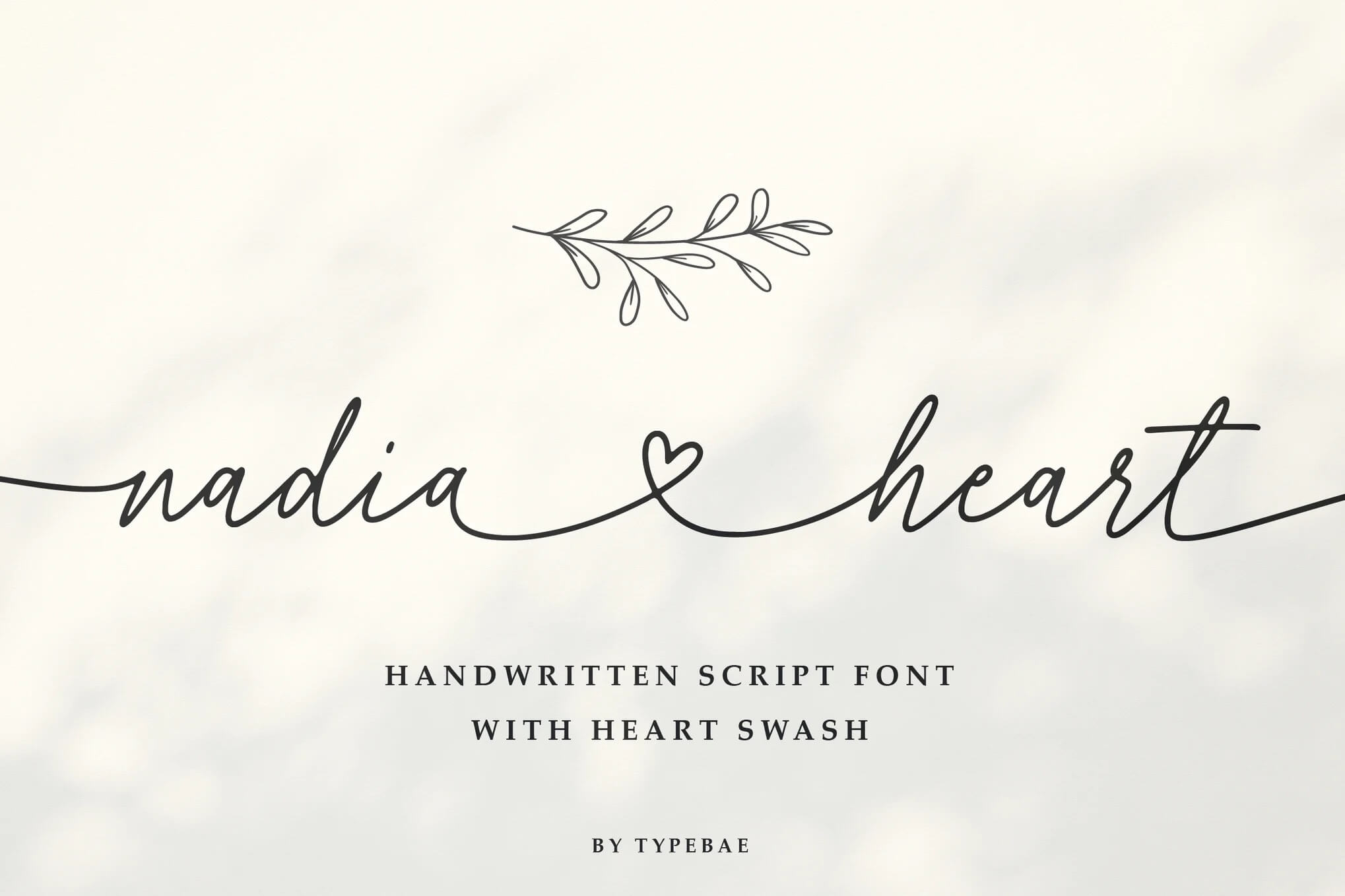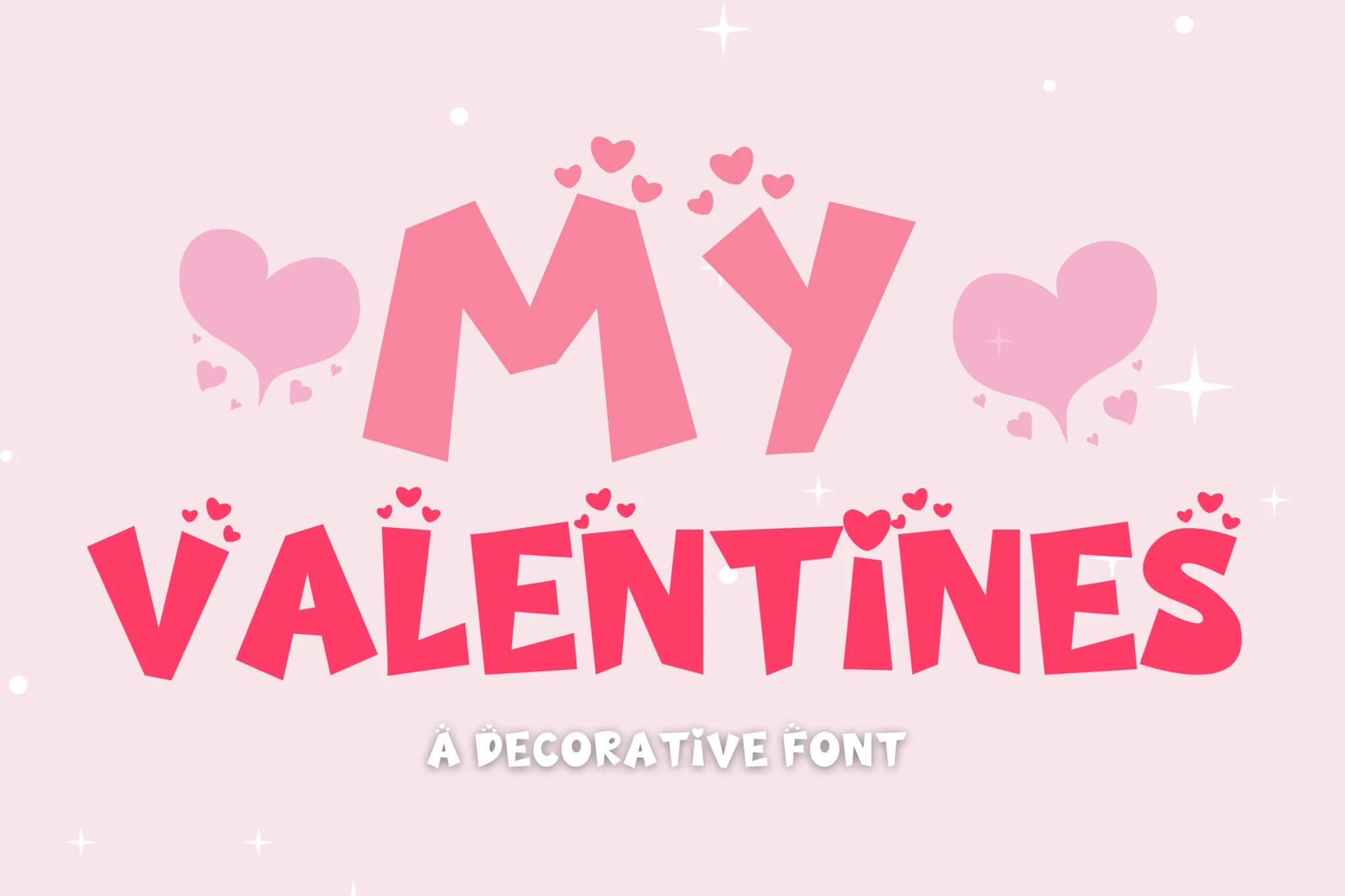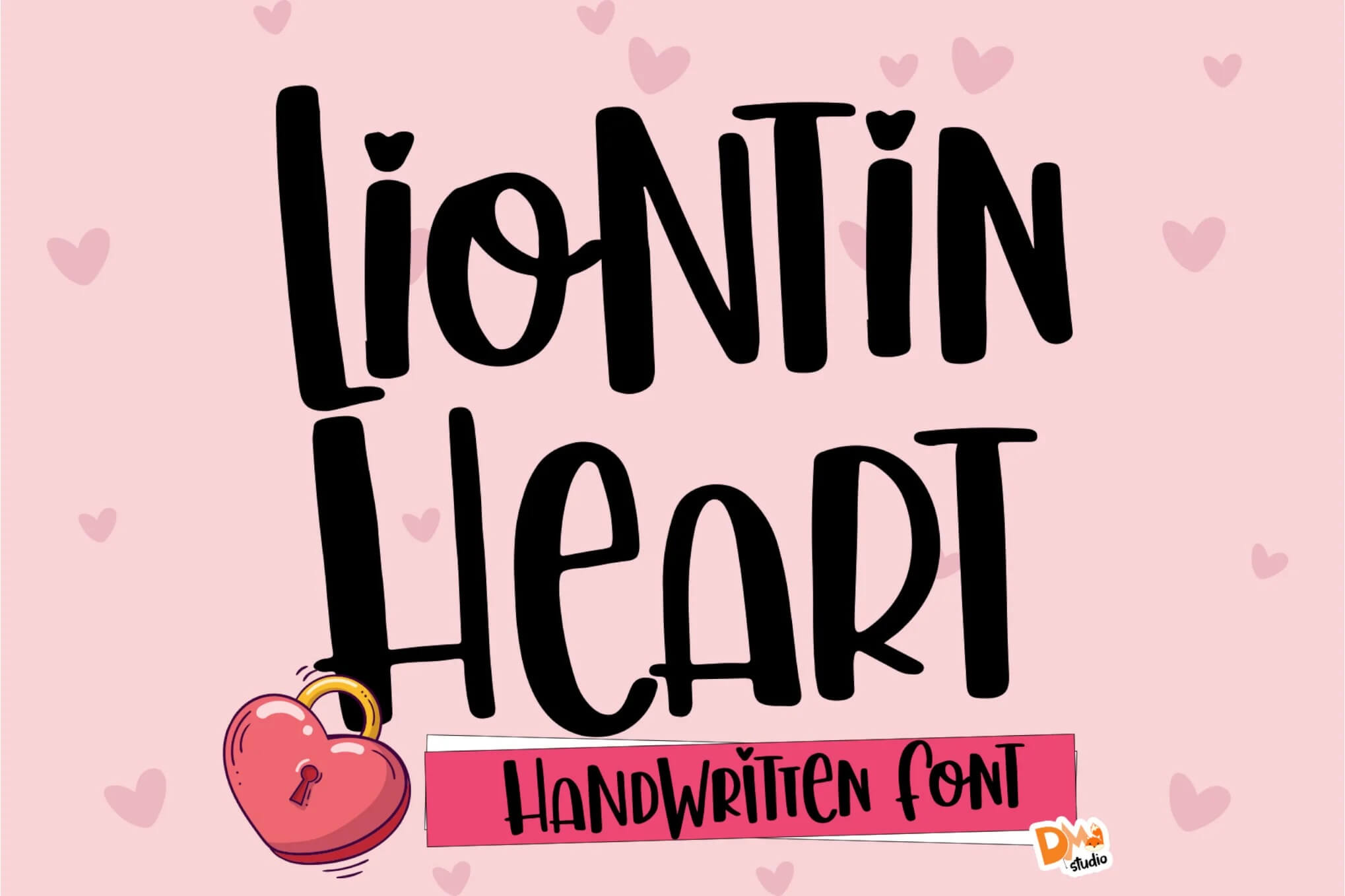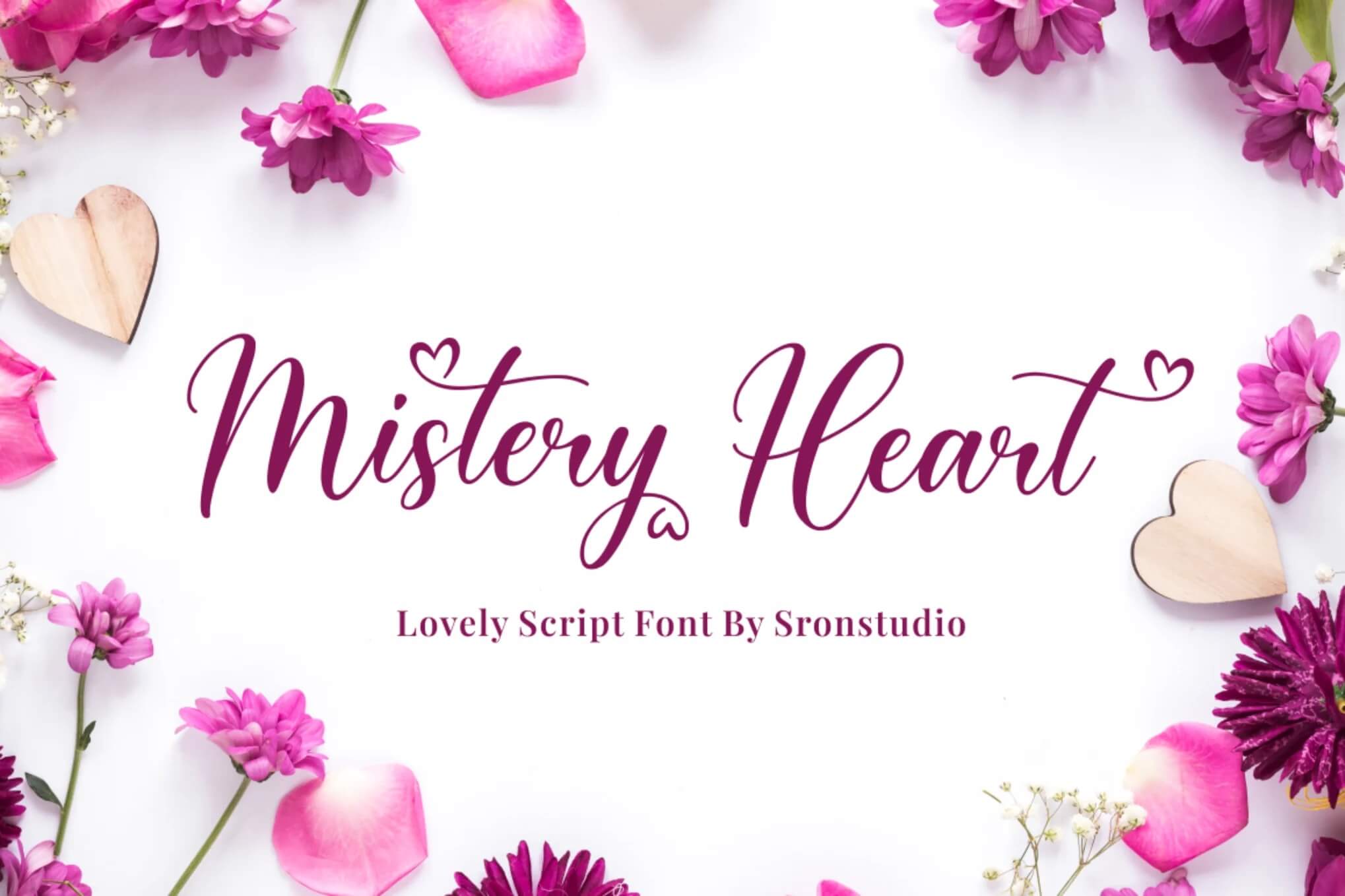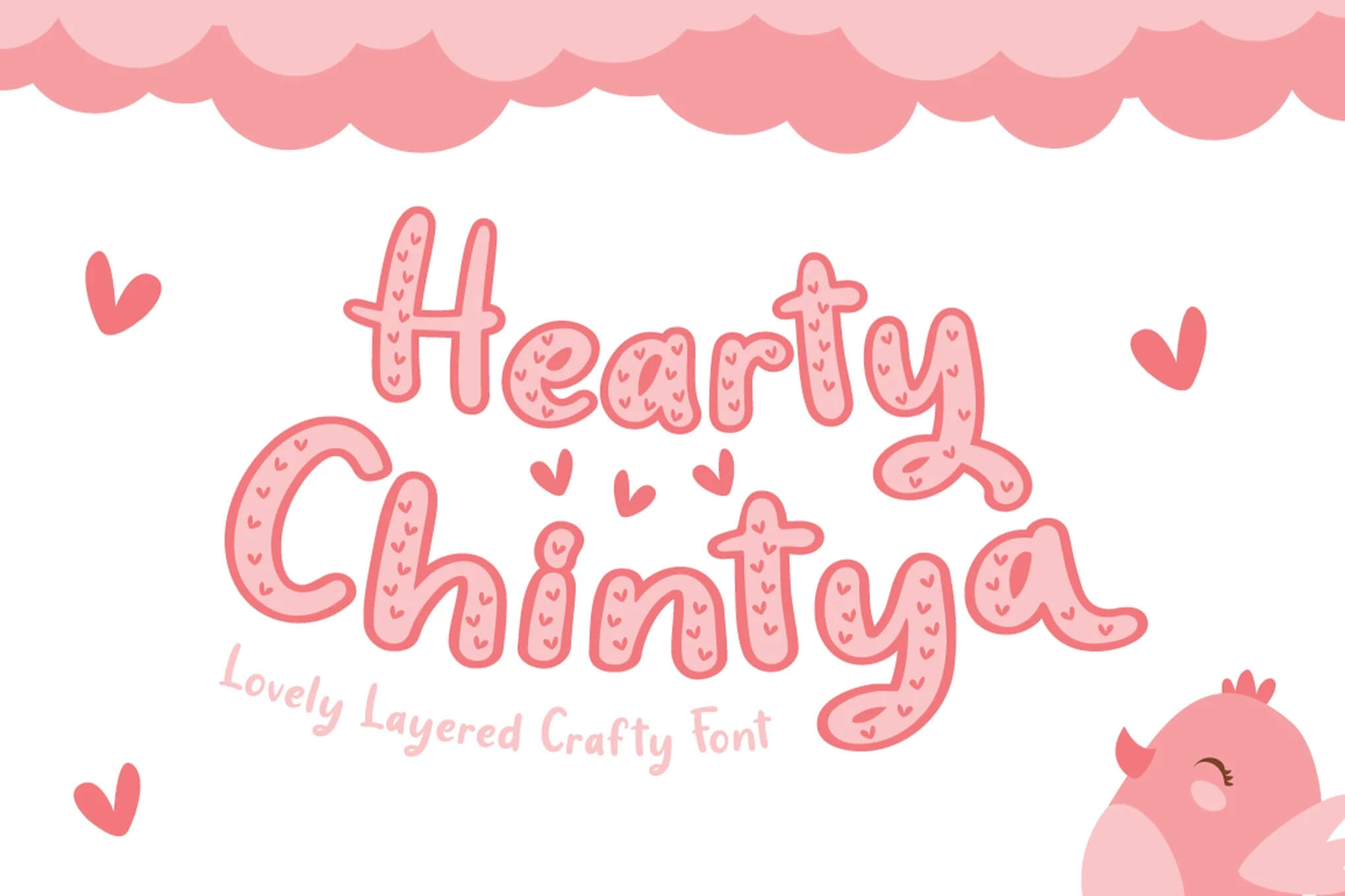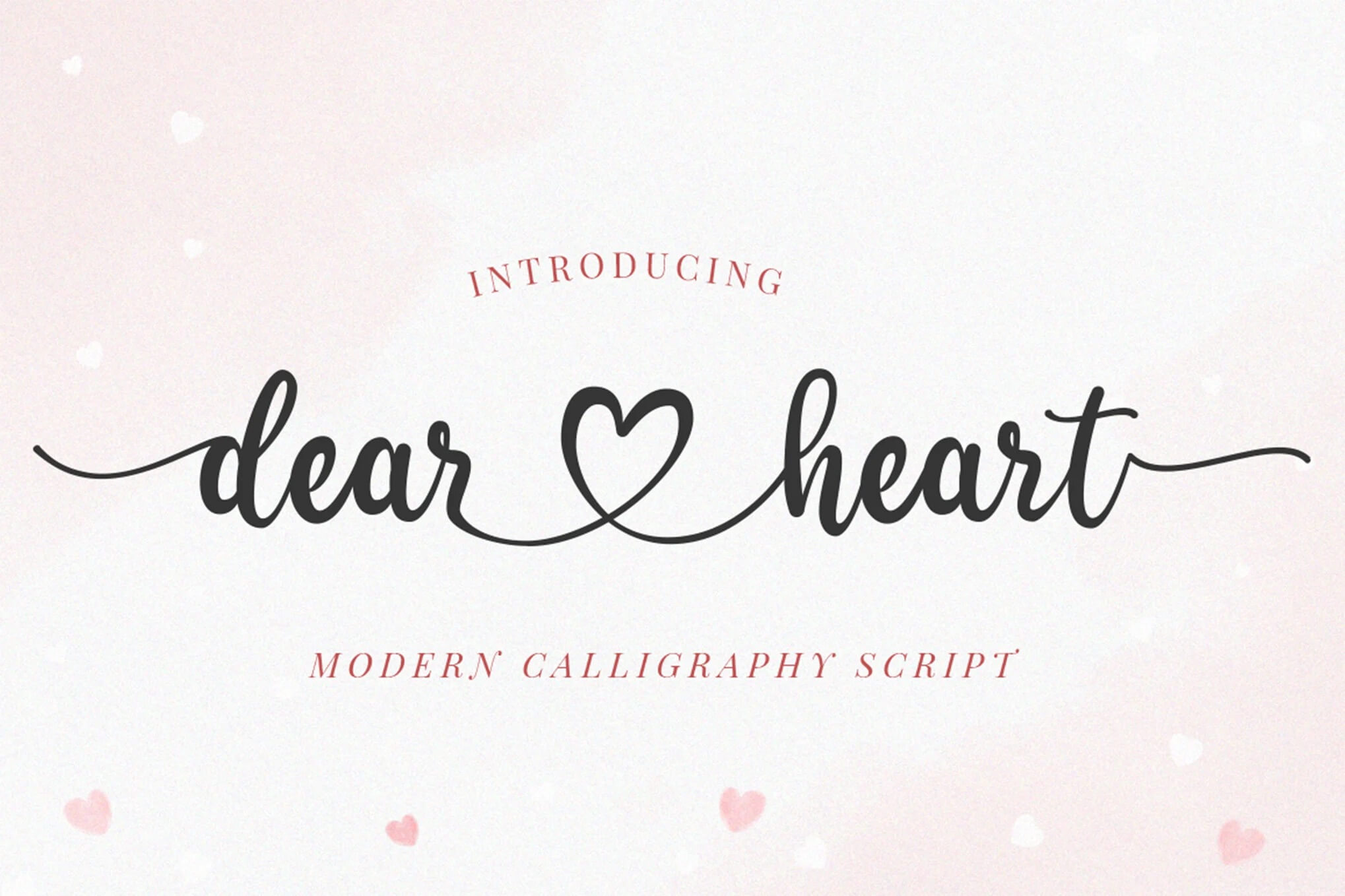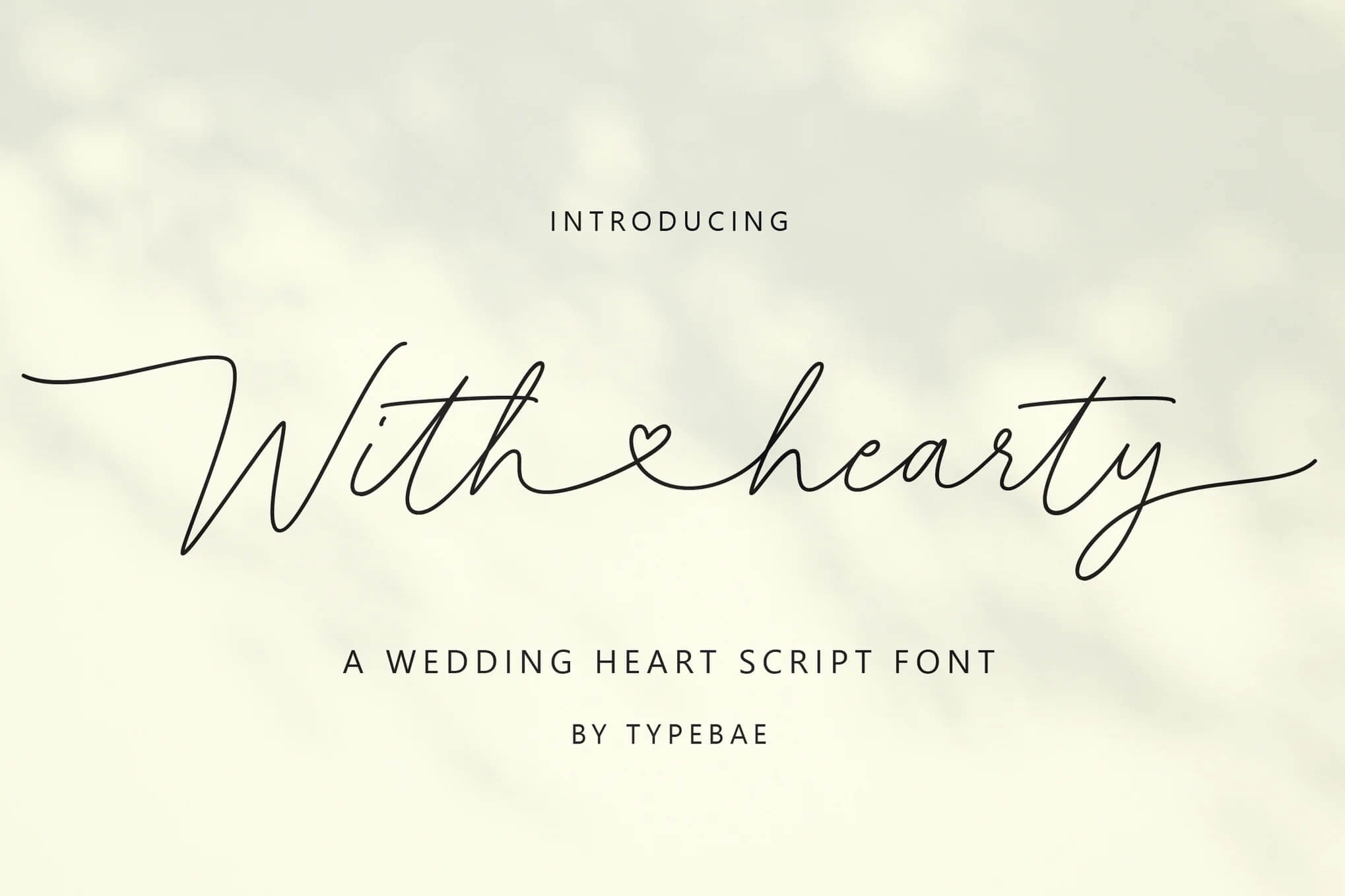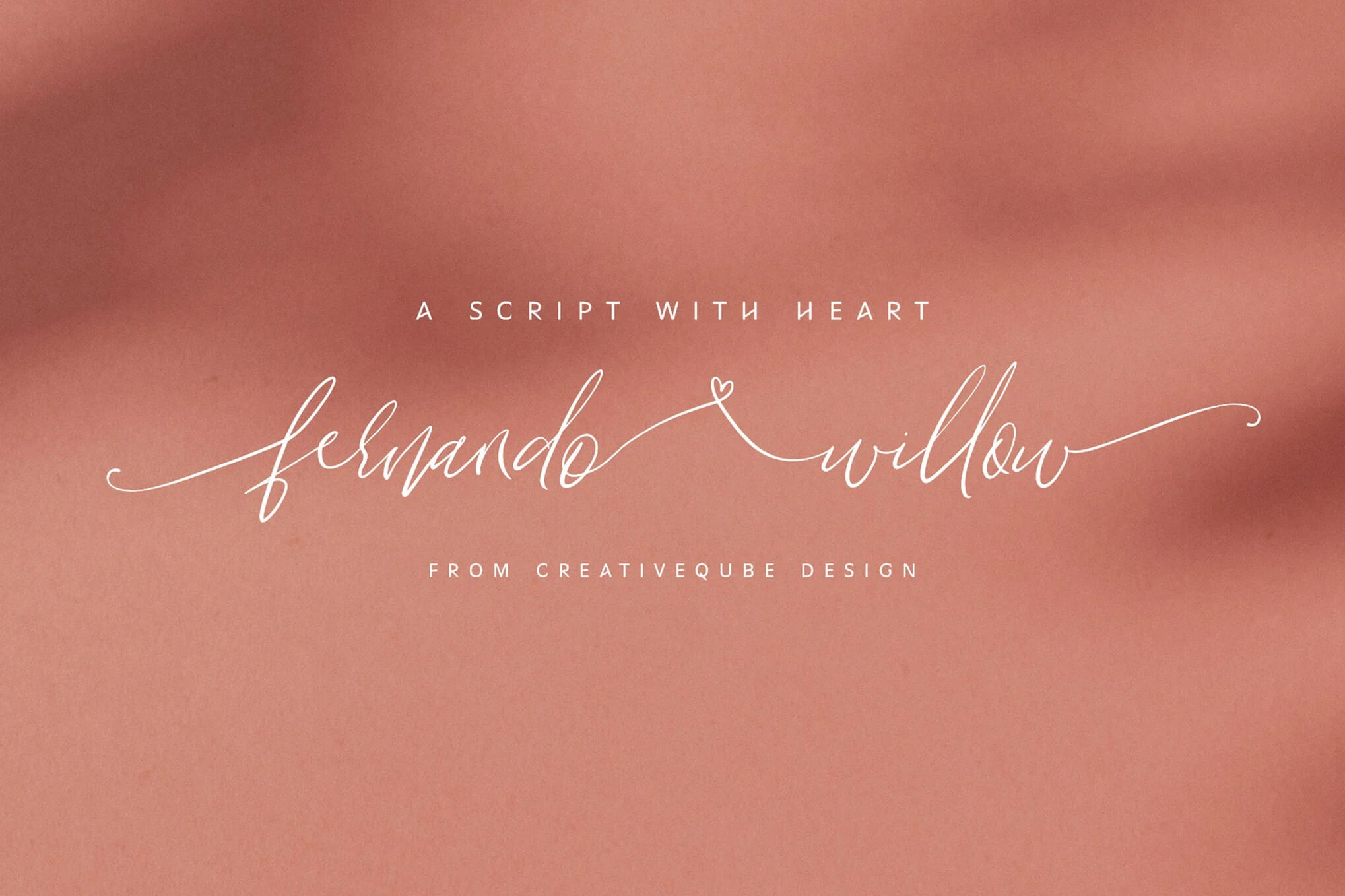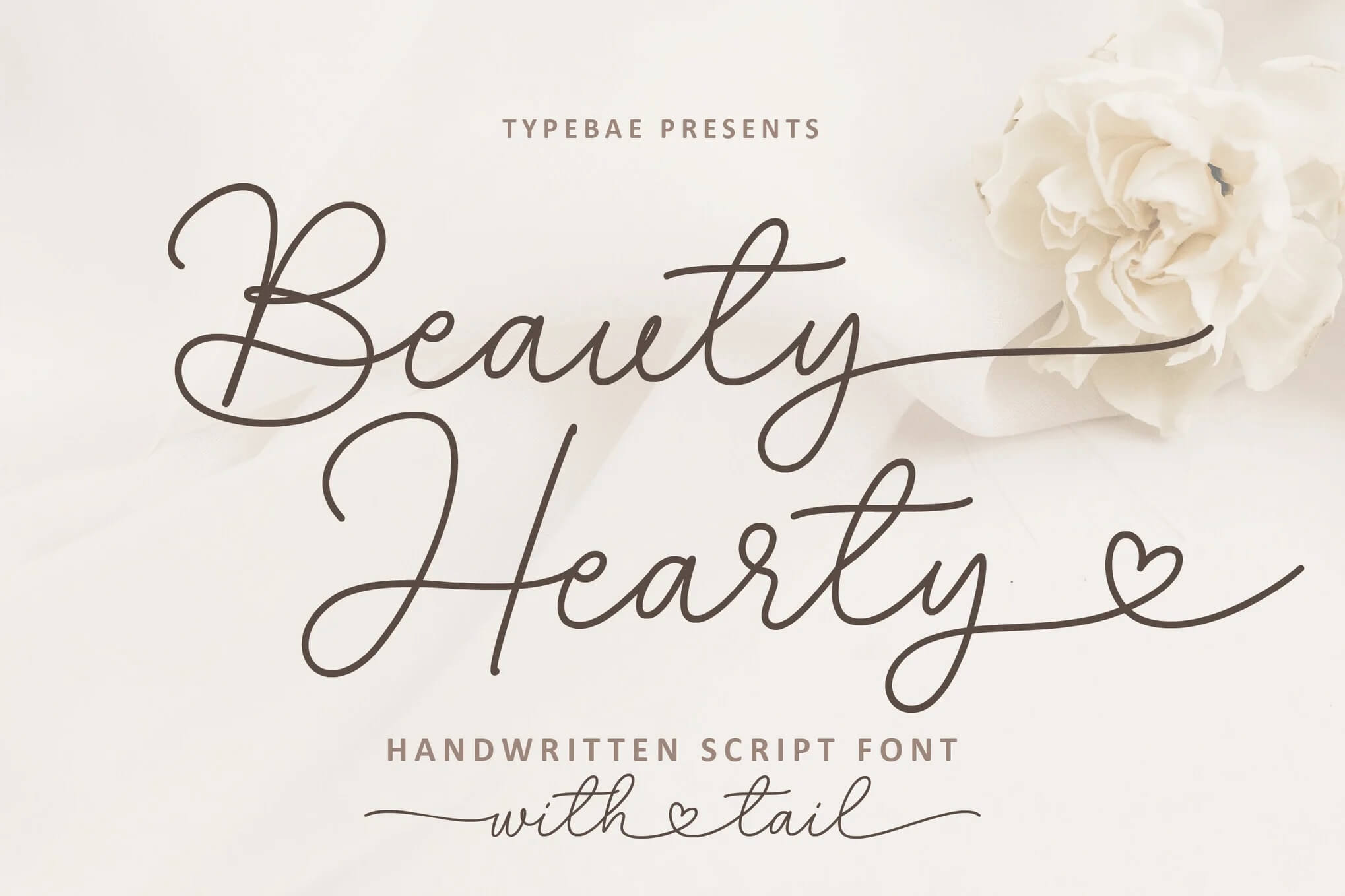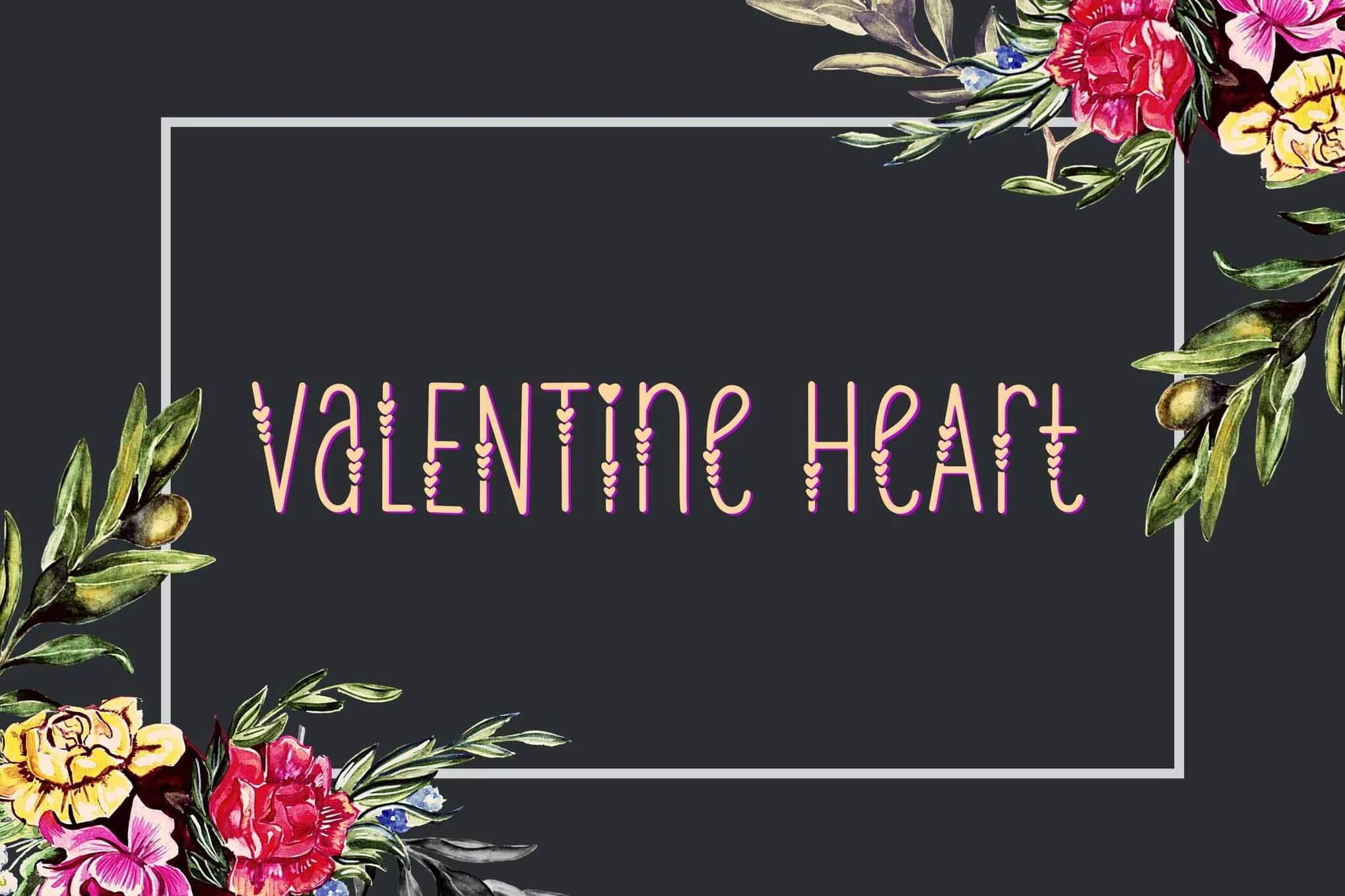
23 Fonts With Heart Symbols
Over the years, I’ve designed everything from wedding invites and product packaging to full-blown brand kits, and if there’s one thing I’ve learned, it’s this: a good font can make or break your design.
And when you’re trying to add that warm, fuzzy, love-filled touch? You need more than just pretty letters, you need fonts with actual heart (literally).
A collage of romantic-themed fonts: "Liontin Heart," "Love Crush," "Mistery Heart," "Love Is Spring," "Wondrous," and "Hearts," each showcasing unique styles.
Whether you’re putting together a romantic brand, creating content for Valentine’s Day, or just want to add a playful vibe to your graphics, these fonts with heart symbols are a simple way to level things up.
I handpicked this list from the perspective of someone who’s been in the trenches, juggling client deadlines, messy Canva drafts, and figuring out what actually works for real-world designs.
If you’re a creator, freelancer, or DIY business owner who wants your visuals to feel intentional (but still fun and scroll-stopping), you’re going to love these. Let’s dig into 23 fonts that are charming, quirky, and full of heart, literally.
1. Hearts Silhouette Font
Pink background with heart-themed typography and decorative banners. Text reads "Introducing Hearts: A New Love Themed Font" in playful, romantic style.
Hearts Silhouette is the kind of font that keeps things clean and modern, but adds a little wink, making it unique for branding. The subtle heart shapes tucked into the letters make it feel flirty without being over the top. Great for love notes, cute branding, or anything that needs a soft romantic edge.
2. Nadia Heart – Wedding Script Font with Heart Swash
Elegant handwritten script font with heart swash, featuring decorative branch. Font titled "nadia heart" by Typebae displayed on soft, light background.
Nadia Heart is one of those fonts that instantly feels romantic and whimsical, like it was made for love letters or dreamy wedding invites. The heart-shaped swashes? Absolutely charming. It’s flowy, feminine, and sweet without trying too hard; a unique choice for any romantic occasion. Just pure script magic.
3. My Valentines
Pink and red text "My Valentines," with hearts and sparkles on a light pink background, showcases a decorative font.
My Valentines is playful, bubbly, and full of charm, like doodling in the margins of your notebook with hearts all around. It’s got that sweet handwritten feel that makes anything look more personal, whether it’s a love note or a planner page.
4. Liontin Heart
Bold, playful "Liontin Heart" handwritten font displayed on pink background with scattered hearts. A heart-shaped padlock illustration adds charm.
Liontin Heart feels like a handwritten love note turned into a font, elegant, swoopy, and softly romantic. The heart details woven into the script are subtle but charming, making it perfect for invitations, keepsakes, or anything that needs a little romance on the page.
5. About Heart – Heart Connected Font
Elegant script font "About Heart" with heart motifs, designed by Subectype Std. Background features abstract, wavy gray shapes.
This font is playful but polished, perfect for adding a little charm without going full cheesy in your creative style. The heart accents are subtle but sweet, making it great for love notes, small biz branding, or anything that needs a soft, handmade feel.
6. Mistery Heart – Lovely Calligraphy Font
Elegant script font "Mistery Heart" surrounded by pink flowers, petals, and wooden hearts on a white background. Designed by Sronstudio.
This font is playful without trying too hard, clean lines, a soft heart detail, and just the right amount of charm, making it a beautiful choice for any project. It’s perfect when you want your words to feel sweet, light, and a little bit flirty without going full-on cheesy.
7. Hearty Chintya – Layered Crafty Font
Whimsical pink font design spells "Hearty Chintya." Surrounded by hearts and a cute bird illustration, cloud top border completes playful aesthetic.
This font feels like a handwritten love note you’d find tucked into a book, soft, swoony, and just the right amount of romantic. It’s playful without being childish, and polished enough to work for invites, headers, or anything that needs charm; explore the beautiful heart fonts available on our website.
8. Dear Heart Script
Calligraphy design reading "dear heart" with a heart symbol between words. Styled as "modern calligraphy script" on a light pink background.
Dear Heart Script has that handwritten charm that feels like a love note you didn’t expect but secretly hoped for. It’s soft, a little swoony, and totally romantic without trying too hard, making it a perfect fit for beautiful wedding invites. Perfect for invites, branding, or anything that needs a whisper of elegance and warmth, explore our collection of beautiful fonts.
9. With Hearty – Elegant Wedding Heart Script Font
Elegant script font with a heart shape, designed for weddings, by Typebae. The background is soft and neutral, enhancing the font.
Dear Heart Script feels like a handwritten love note, soft, swoopy, and full of charm, making it a great choice among free heart fonts. It’s delicate without being fussy, and the little swirls give just the right amount of flair. Perfect when you want something that whispers, not shouts, in a creative way.
10. Fernando Willow Heart Script
The image features elegant white script text reading "Fernando Willow" on a soft peach background, described as "a script with heart" by Creativeqube Design.
This font feels like a handwritten love note you’d tuck into a wedding album or Valentine’s card, a charming addition to any collection. It’s sweet but not overly frilly, just enough charm to feel personal in any creative project. Think delicate curls, gentle flow, and soft romance without trying too hard.
11. Beauty Hearty – Handwritten Font with Heart Swash
Elegant handwritten script font "Beauty Hearty" displayed with a decorative heart; accompanied by a white rose on a soft background.
This font feels like a handwritten love note, sweet, slightly whimsical, and totally charming, perfect for any project. The soft curves and playful strokes give it a personal touch, like something you’d use for wedding invites, moodboards, or any text with heart; explore our heart fonts for more inspiration. It’s romantic without trying too hard, ideal for any creative project.
12. Wondrous
Playful display font "Wondrous" with heart details on burgundy fabric background, designed by Alpaprana Studio © 2023. Romantic and artistic style.
Wondrous feels like a love letter in font form, romantic, decorative, and just the right amount of dramatic. It has those curvy, heart-touched swashes that make every word feel personal. Perfect for Valentine’s, weddings, or anything where you want the design to feel extra dreamy and handwritten.
13. Valentine Heart
Decorative floral border with vibrant flowers, green leaves, and pink text "Valentine Heart" on a dark background, conveying a romantic theme.
This font feels like it was made for love notes and heartfelt captions. It’s playful but elegant, with just enough charm to stand out without trying too hard. Perfect for anything romantic, feminine, or just plain pretty. Total keeper.
14. Monogram Heart Flourish Font
Heart-shaped monograms and tags showcase a hand-drawn Valentine's frame font, adorned with decorative swirls and elegant lettering, on a pink background.
This font has that hand-drawn, heart-on-your-sleeve charm that feels playful without trying too hard. It’s soft, sweet, and full of personality, perfect for anything love-themed, DIY, or personal. Think: Valentine cards, wedding invites, or heartfelt gift tags.
15. Wonderful Love Script Font
Red background with the words "Wonderful love" surrounded by pink hearts and stars, showcasing a decorative font design.
This font feels like a handwritten love note, playful, soft, and a little bit flirty. It’s the kind of typeface that adds a personal touch without trying too hard. Perfect for designs that need warmth, charm, and just a hint of whimsy.
16. Fontarian Sweet Heart
Playful font advertisement with heart motifs, titled "Fontarian Sweet Heart." Described as a "Cute & Lovely Font by Orenari" on red background.
This font feels like a handwritten love note, soft, flowing, and full of charm, ideal for your next creative project. It’s got those playful curves and heart-touched strokes that make anything feel instantly more personal. Perfect for invites, sweet quotes, or anything that needs a little romance.
17. Romantic Heart a Romantic Script Font
Whimsical script saying "Romantic Heart" in pink, surrounded by hearts on a light pink background. Promotes a romantic script font style.
Romantic Heart is one of those fonts that feels like a handwritten love letter, soft, swirly, and full of charm. It’s delicate but expressive, perfect for wedding invites, Valentine’s crafts, or anything that needs a little extra “aww.” A total sweetheart of a script in our collection.
18. Love Crush
Colorful, bubbly, pink-themed design featuring playful text "LOVE CRUSH" with heart motifs and stars, promoting a lovely thick display font.
Love Crush is like a handwritten love note you’d find tucked into a bouquet, playful, flirty, and just a little dramatic in the best way. It’s bold, curvy, and full of charm, perfect when you want your design to feel romantic but still fun.
19. Sweetheart
Elegant calligraphy font "Sweetheart" on a soft floral background, with decorative heart accents. Created by Masdika Studio, emphasizing romance and creativity.
This font has that sweet, delicate charm that instantly softens whatever you’re designing. It’s playful without trying too hard, like a handwritten note tucked inside a gift box. Perfect for anything that needs a little warmth, love, and personality.
20. Cute heart font family Lovey
Pink background showcasing the "Lovey" font in playful letters, described as "the cutest font ever" with bonus shapes.
The Lovey font family is pure charm in script form, making it a standout in any text collection, perfect for those who love unique designs. It’s got those soft, swirly curves that instantly say “handwritten with heart.” Perfect for love notes, logos, or anything that needs a little warmth and whimsy. Feels like a font that actually smiles back, just like a beautiful heart font would on a lovely website..
21. Heart – Valentines Font
The image displays "HEART" in a decorative Valentine font with heart shapes, surrounded by red and pink heart patterns on a light background.
This font has that effortless charm, like a handwritten love note with just the right amount of flair, making it a unique choice for any occasion. It’s soft, curvy, and full of personality. Perfect for anything romantic, cozy, or heartfelt without feeling overdone. Total vibe.
22. Wedding Heart Monogram Font
Two people hold coffee cups on a marble surface with heart monograms, tags, and floral accents, showcasing "Wedding Heart Monogram Font."
This font feels like a handwritten love note, playful, a little flirty, and full of charm. The curves are soft, the vibe is sweet, and it instantly adds a personal, heartfelt touch to anything you’re creating. Think: cozy, romantic, and effortlessly cute.
23. Love Is Spring Hand Drawn Font
Decorative text saying "Love is Spring" in a hand-drawn Scandinavian font. Accompanied by a floral branch and a pink fabric background.
Love Is Spring is a sweet, hand-drawn font full of personality, swirly letters, heart details, and a romantic touch that feels handmade. It’s perfect for wedding invites, love notes, or anything that needs a little charm, especially from our collection of heart fonts. Think: playful elegance meets heartfelt simplicity. Just type, and the magic shows up.
Final Thoughts
I’ve learned over the years that it’s the little things—like a tiny heart in your type—that make a design feel special. These fonts aren’t just cute; they add instant charm and personality without overthinking it. So if you’re creating something with love (or for someone you love), try one of these. Sometimes, it’s the smallest details that leave the biggest impression.